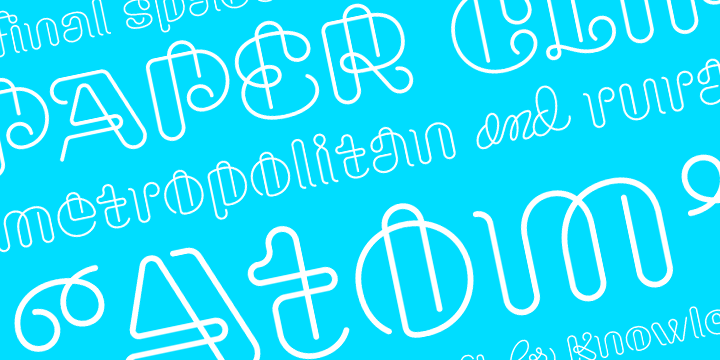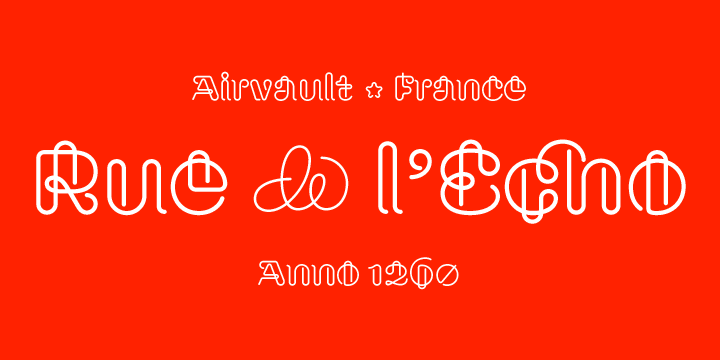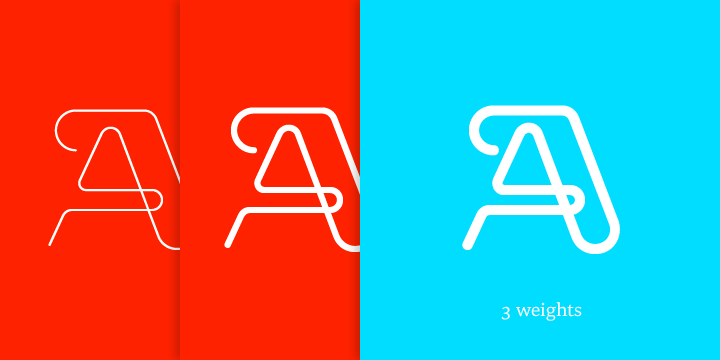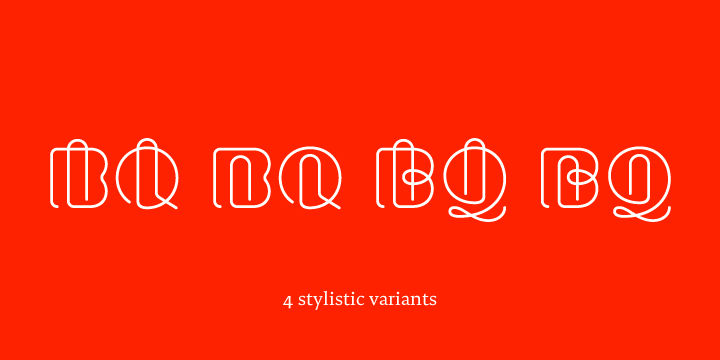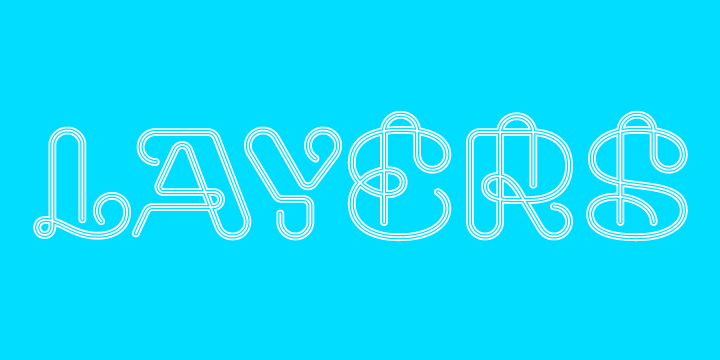
Clip font family
Clip is a display typeface inspired by the shape of a paperclip, but it’s not designed with the usual minimalistic modular approach. Instead, Clip mimics the construction, proportions and contrast of classic bold text typefaces and has one unique characteristic: each of its characters is drawn with only one single line.
Clip family consists of 3 fonts, Hair, Light and Regular, each with 745 glyphs (supporting more than 70 latin based languages), 4 stylistic sets and advanced OpenType features. When Stylistic set 1 is activated, the overlapping loops contract, giving the text a whole new character. Moreover, every uppercase character is also available in an ornamental swash variant, which means most of the capitals have four different versions.
Clip Hair
Clip Light
Clip Regular